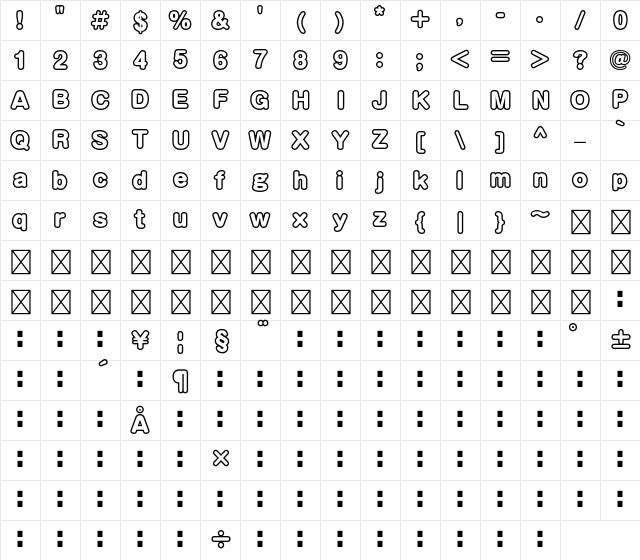
A-OTF Shin Maru Go Min Futoline
Style: Futoline
Designer: Morisawa and Company Limited.
Design Context for A-OTF Shin Maru Go Min
A-OTF Shin Maru Go Min is a composed and adaptable typeface that performs quietly and consistently across a wide range of design contexts.